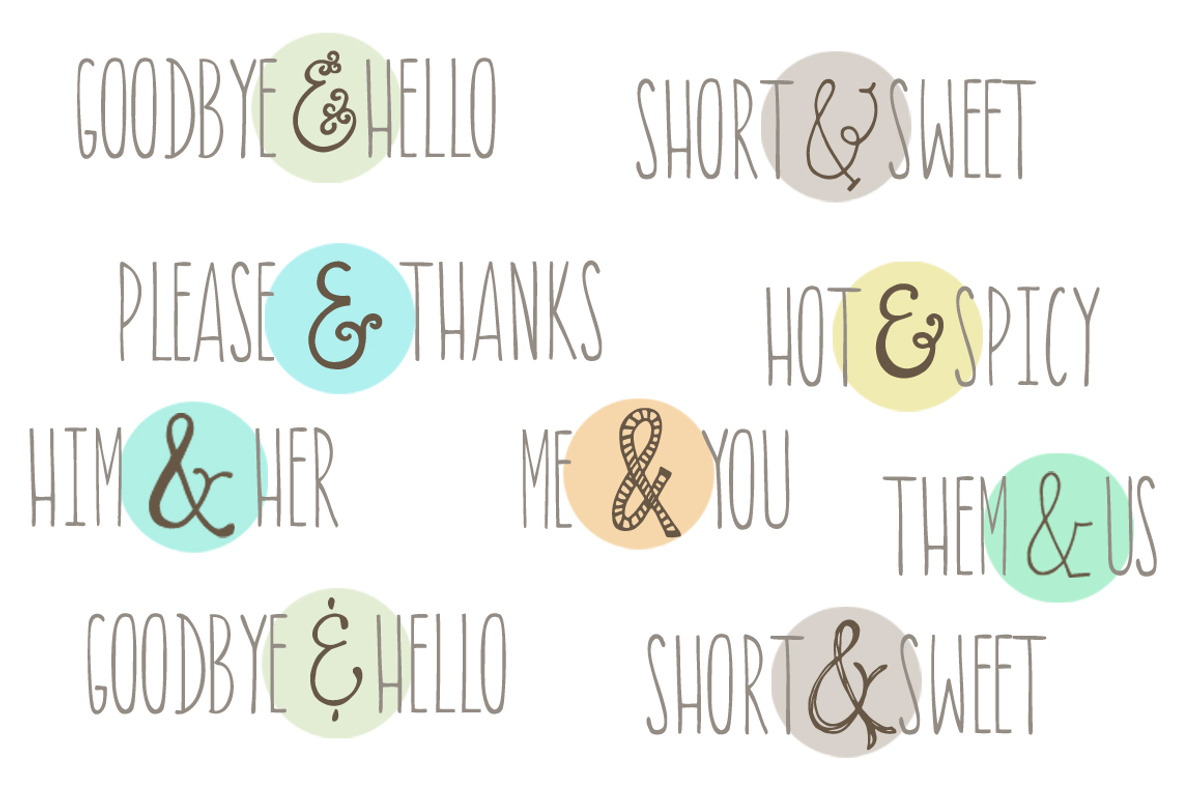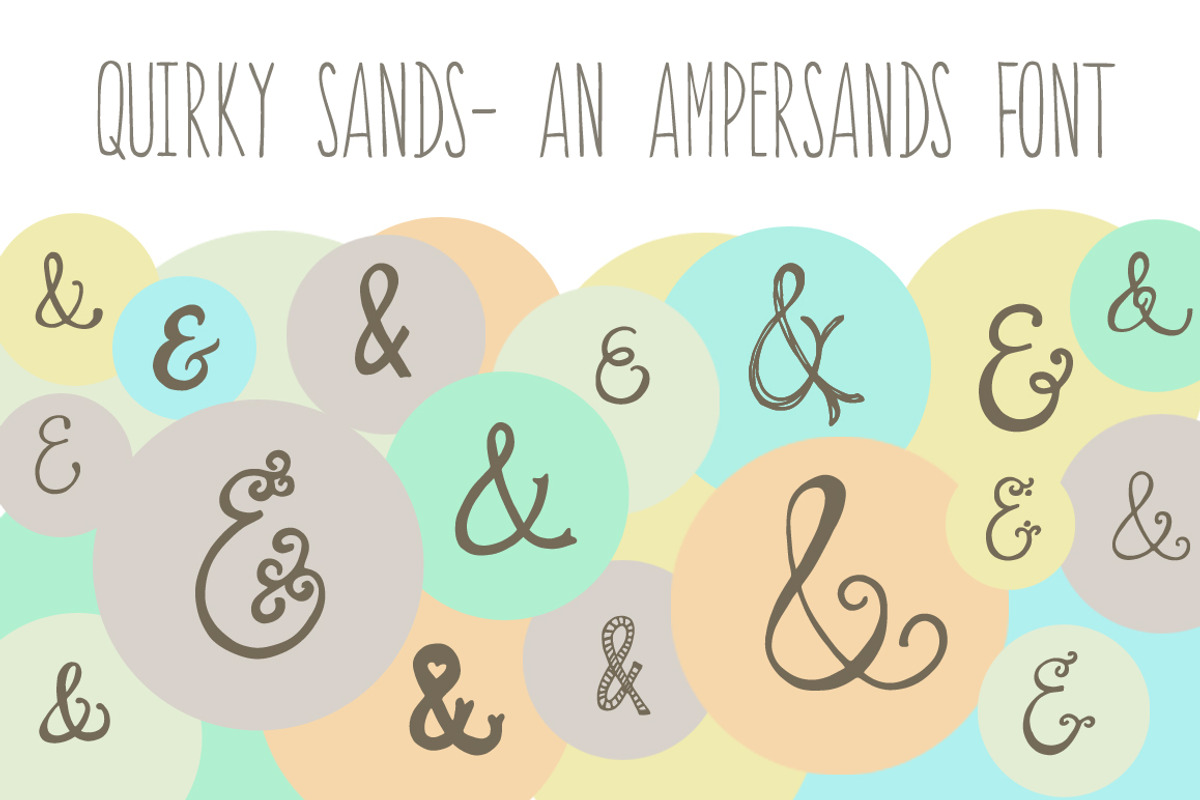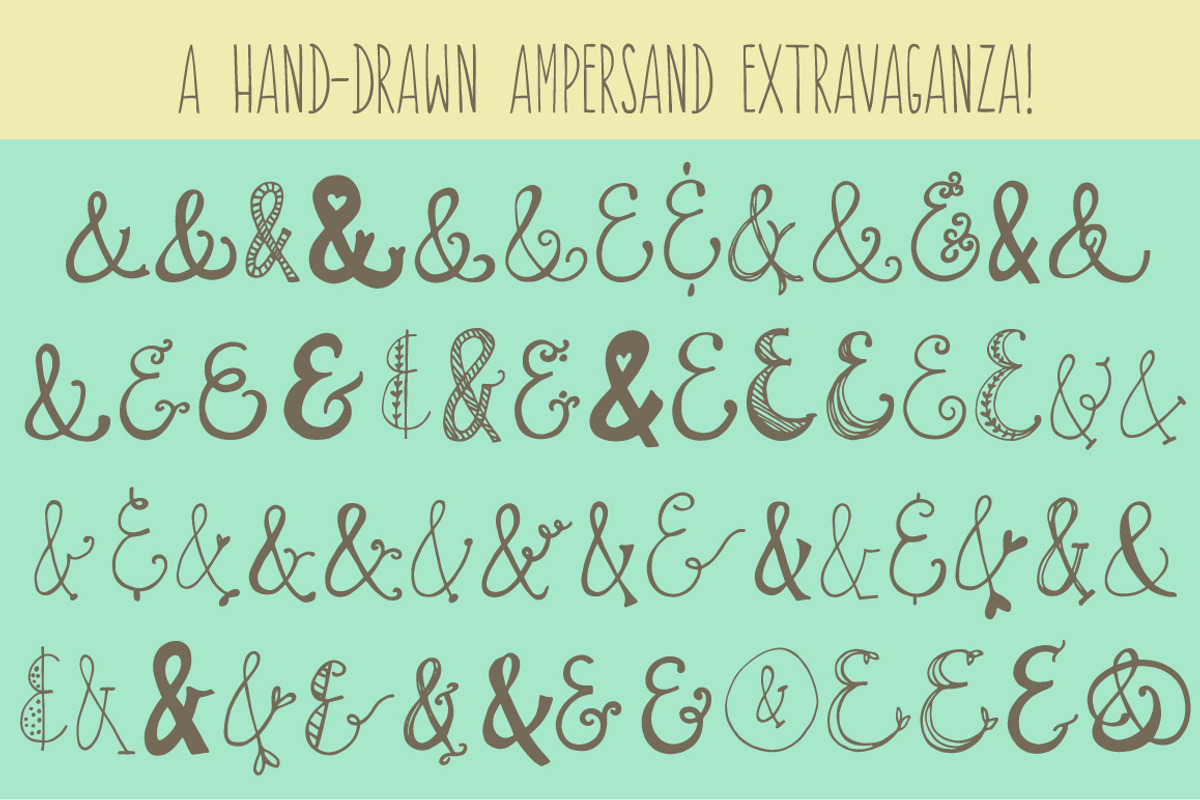
Quirky Sands- An Ampersand Font
Quirky Sands- An Ampersand Font by Angie Makes is a font selected for branding, posters, packaging, typography.
- Included are 58 different ampersands with a unique, hand-drawn feel.
Why Quirky Sands- An Ampersand Font is worth a look
Quirky Sands- An Ampersand Font by Angie Makes fits naturally into Branding, posters, packaging, typography.